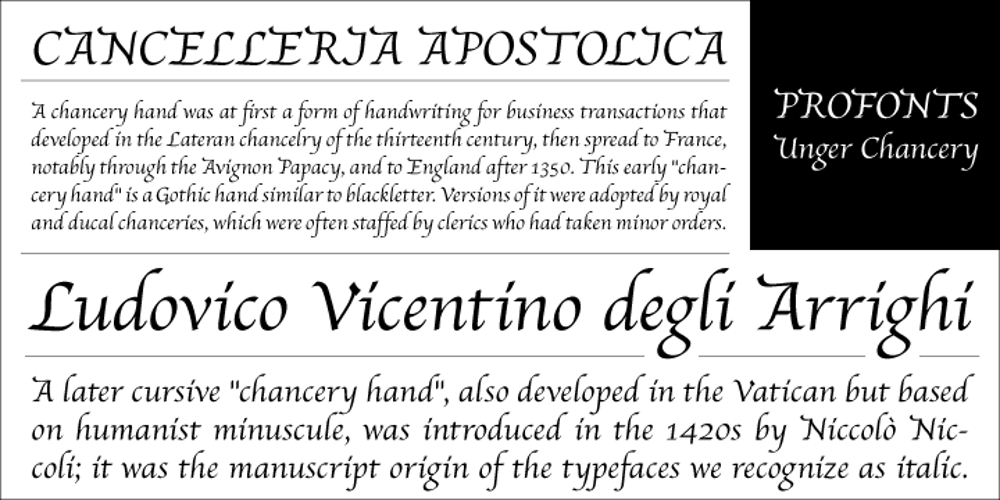
Unger Chancery Font Family was designed by Ralph M. Unger and published by profonts. Unger Chancery contains 1 styles and family package options. Unger Chancery is a modern interpretation of the medieval scripts for business transactions used in England. This kind of handwriting script is still popular today for any kind of office communication as well as private letters and notes.